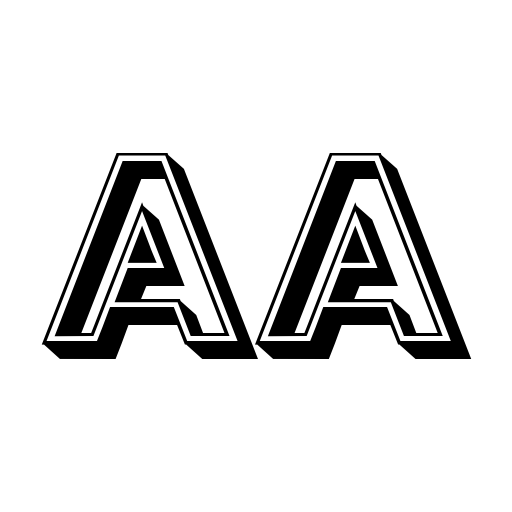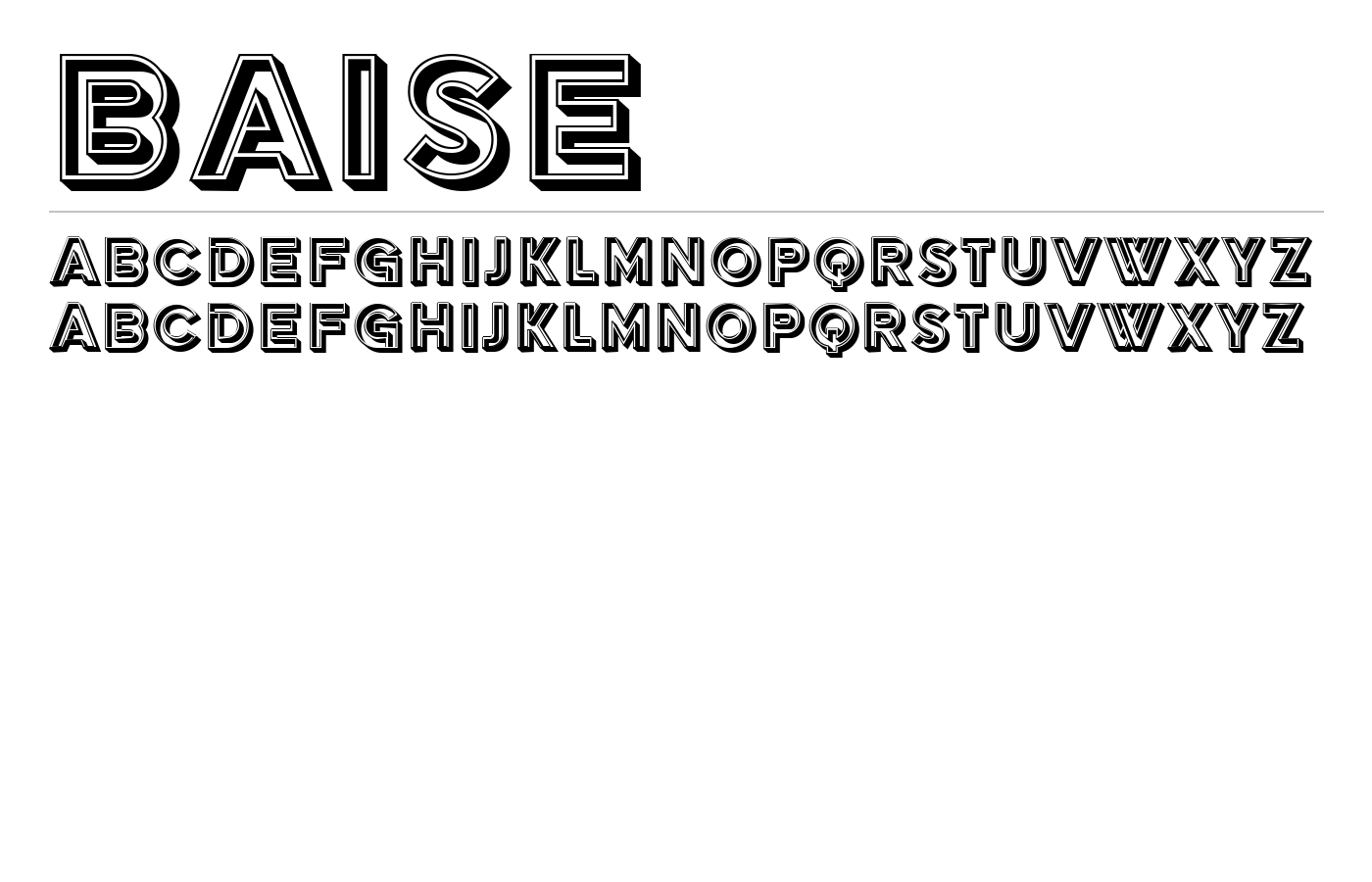
Baise is a bold, decorative sans serif font that features a striking three-dimensional layered effect, giving it a dynamic and playful appearance. Its uppercase letterforms are geometric and well-proportioned with consistent stroke weight, making it ideal for eye-catching headlines, logos, and poster designs where a strong visual impact is desired. This font works especially well in creative branding and display contexts where a modern yet fun aesthetic is needed to grab attention.
Baise Font
About Baise Font